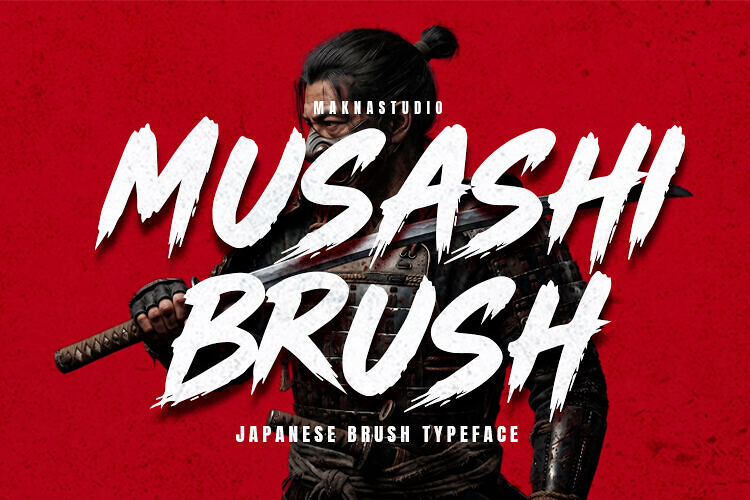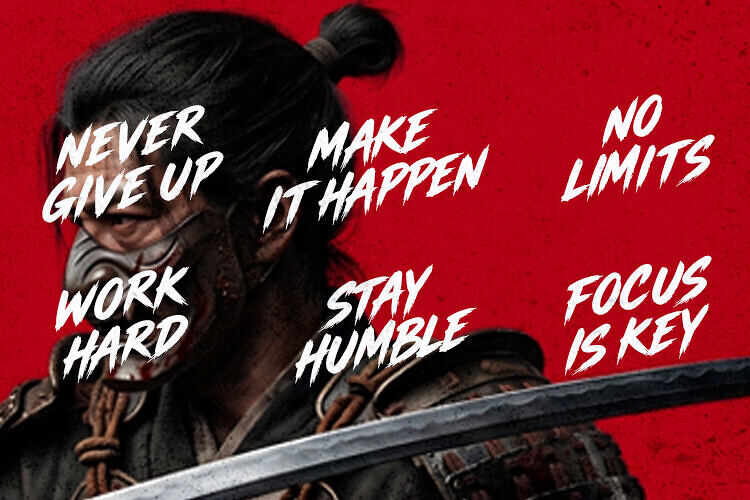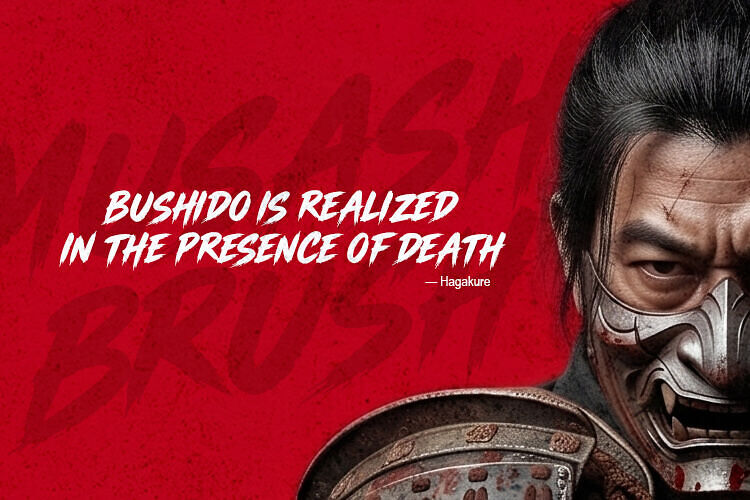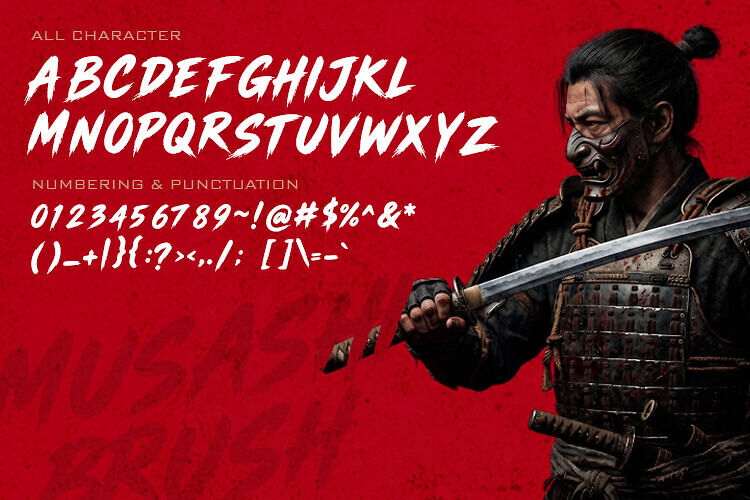
Musashi Brush is a high-impact, hand-painted display font designed for creators who don’t do “subtle.” Featuring aggressive, dry-brush strokes and a frantic italic lean, this typeface captures the raw energy of street art and the speed of high-performance racing.
For bold projects, consider a font with gritty textures and sharp edges. It’s ideal for streetwear, esports, action movies, and extreme sports. When you need to stand out, this font delivers a digital adrenaline rush, perfect for making a loud statement and outshining the competition.